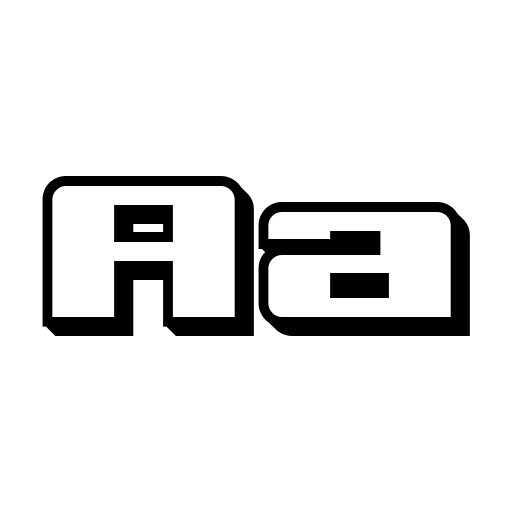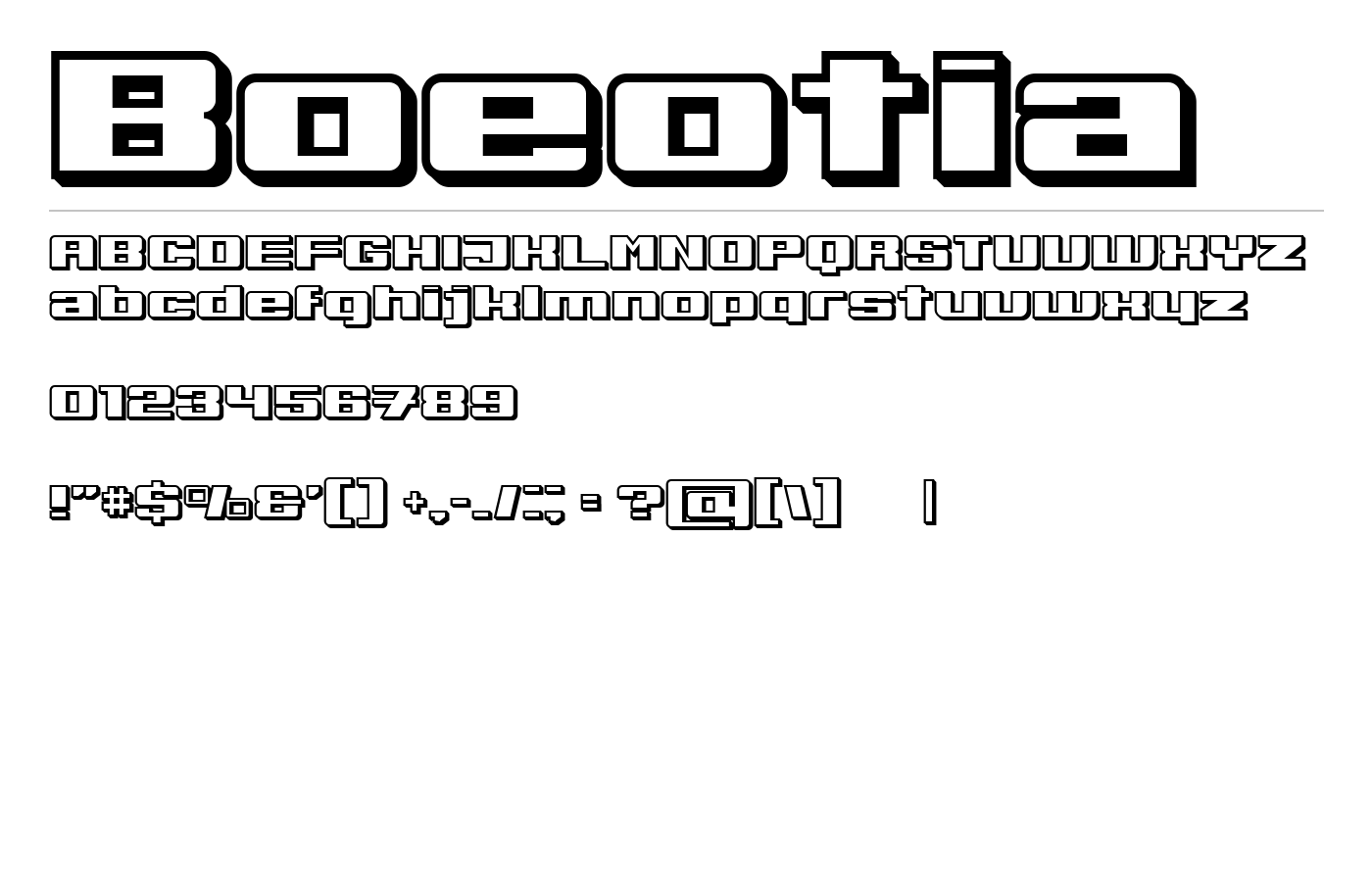
Boeotia is a bold, geometric sans serif font with a distinct blocky and three-dimensional style that gives it a strong, modern, and slightly futuristic personality. Its high x-height, uniform stroke weight, and rounded corners blend sturdy structure with a playful edge, making it ideal for eye-catching headlines, logos, and display uses where a tech-inspired or urban feel is desired. This font works well in creative branding, posters, and digital projects that benefit from a bold, structured, yet approachable look.
Boeotia Font
About Boeotia Font